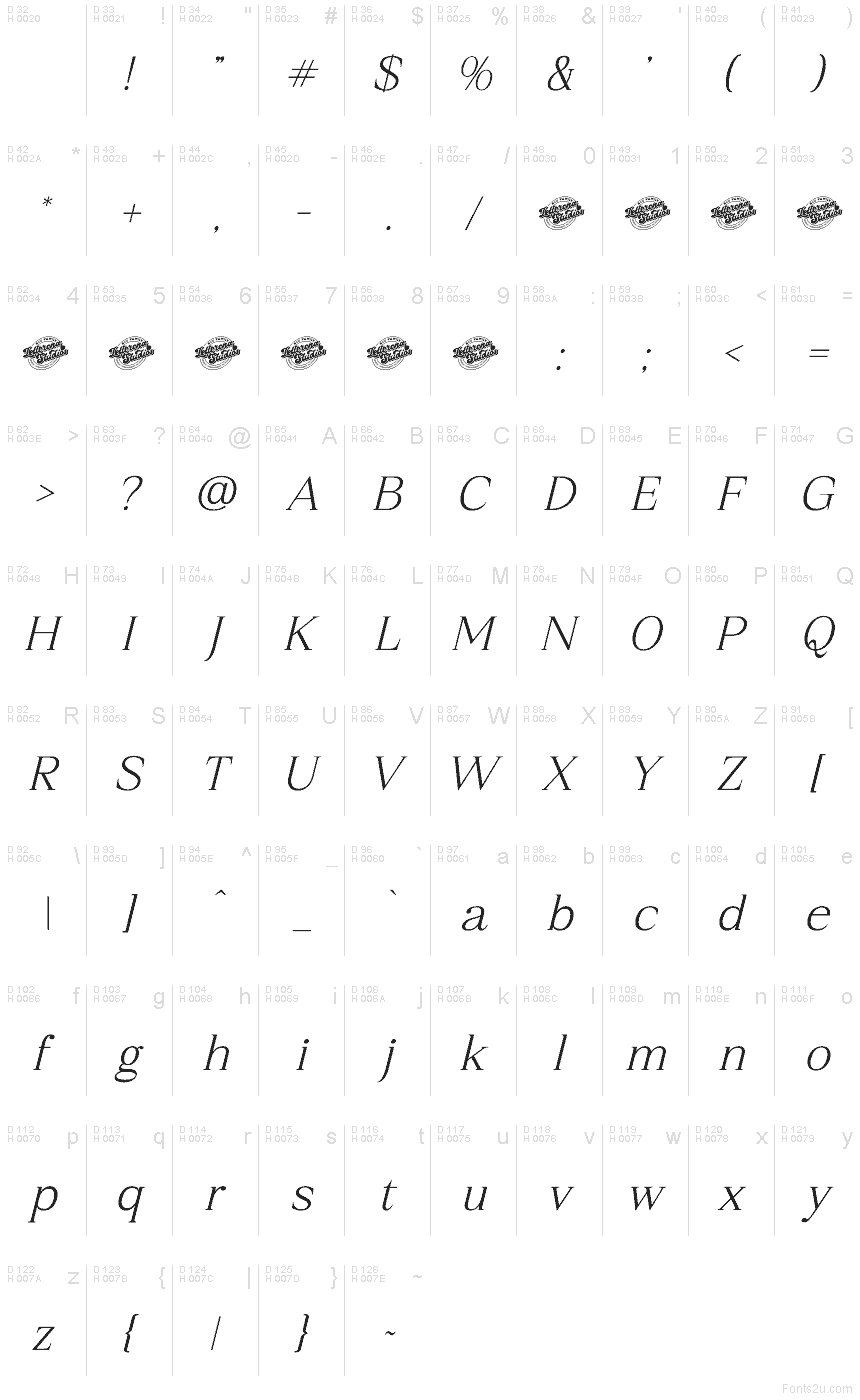
Qestrafin DEMO VERSION Italic
Qestrafin Italic font by Letterena Studios is an adventurous and sophisticated free serif font with a modern style. It features elegant flowing lines, a neat appearance, and a professional exceptionally beautiful finish that captures the senses.
Use it in luxury branding ideas, invitations’ cards, greeting cards, wedding invites, magazine covers and pages that focus on beauty-related content and fashion. It’s also perfect for classic packaging ideas of cosmetics or other businesses.